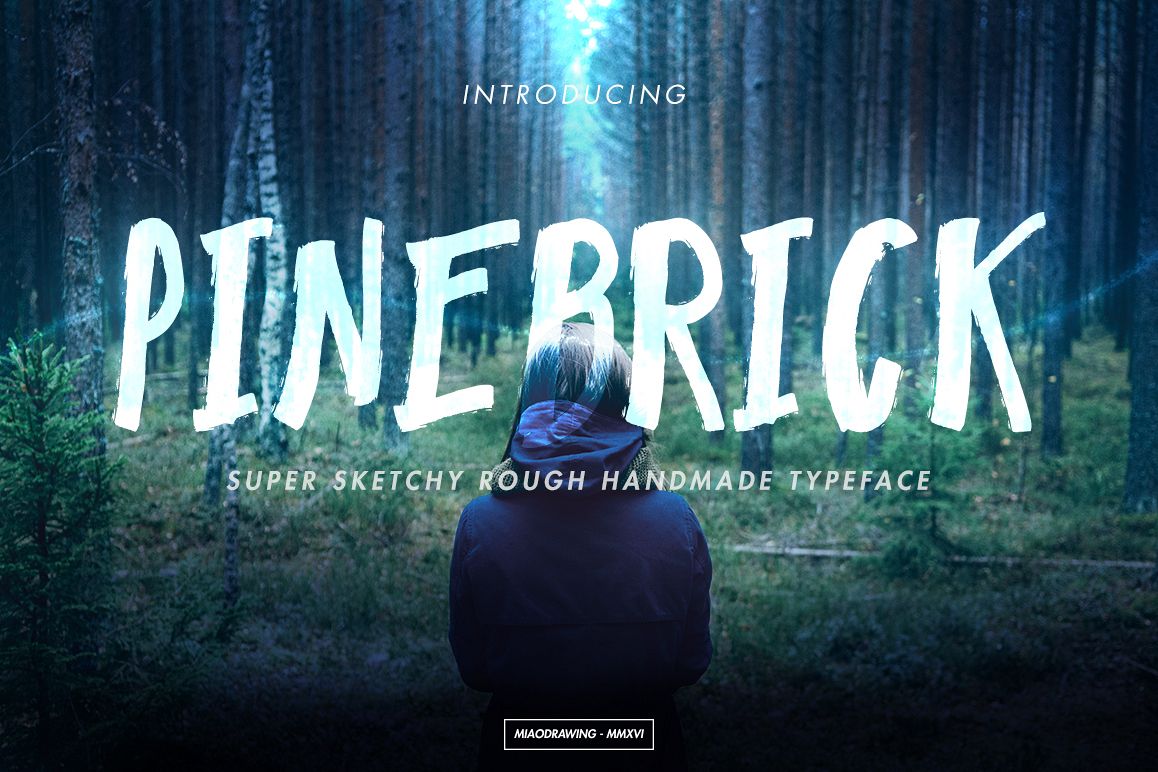
Pinebrick Typeface
Pinebrick Typeface is handmade with super sketchy rough style which is bringing forest and nature mood. Combining bold and sketchy into one typefaces thus becoming super sketchy rough glyphs. Suitable for posters, shirt, or any design requirements.
Pinebrick Features :
- Numerals
- Punctuations
Pinebrick Typeface give you many glyphs which you can mix and match with one or another glyphs to make an awesome design.